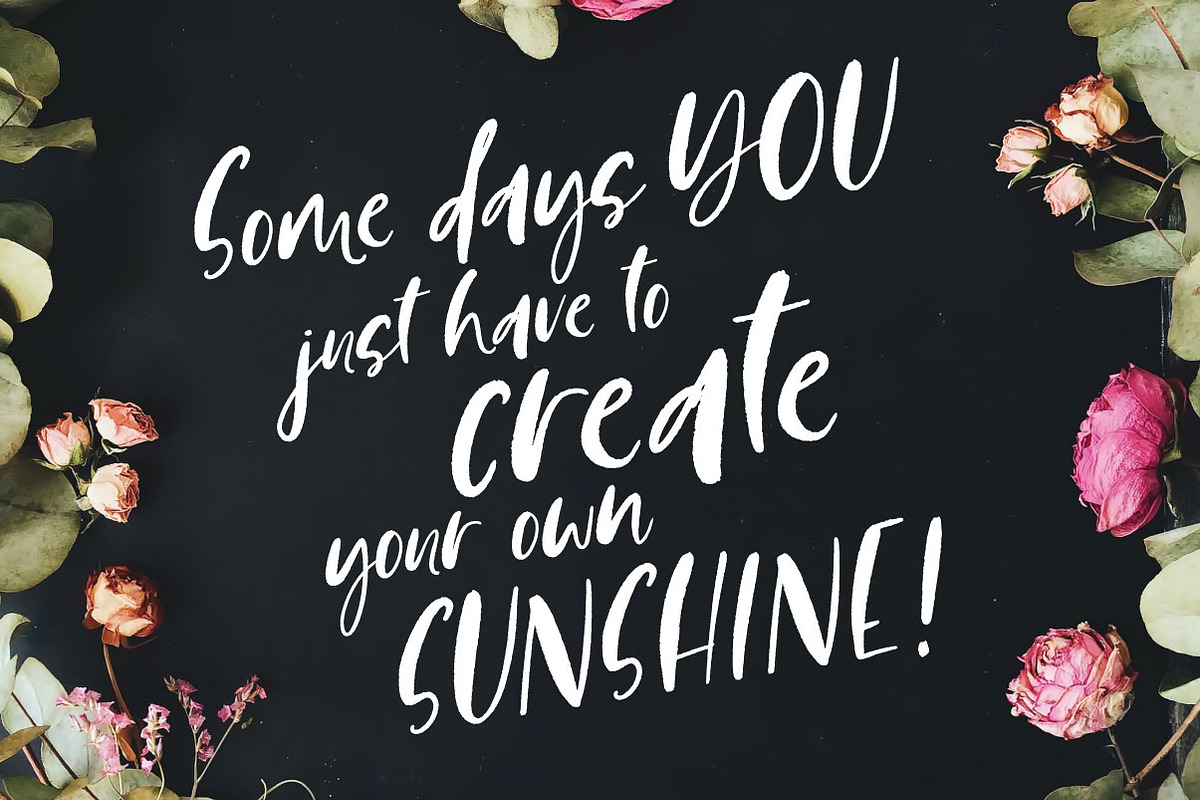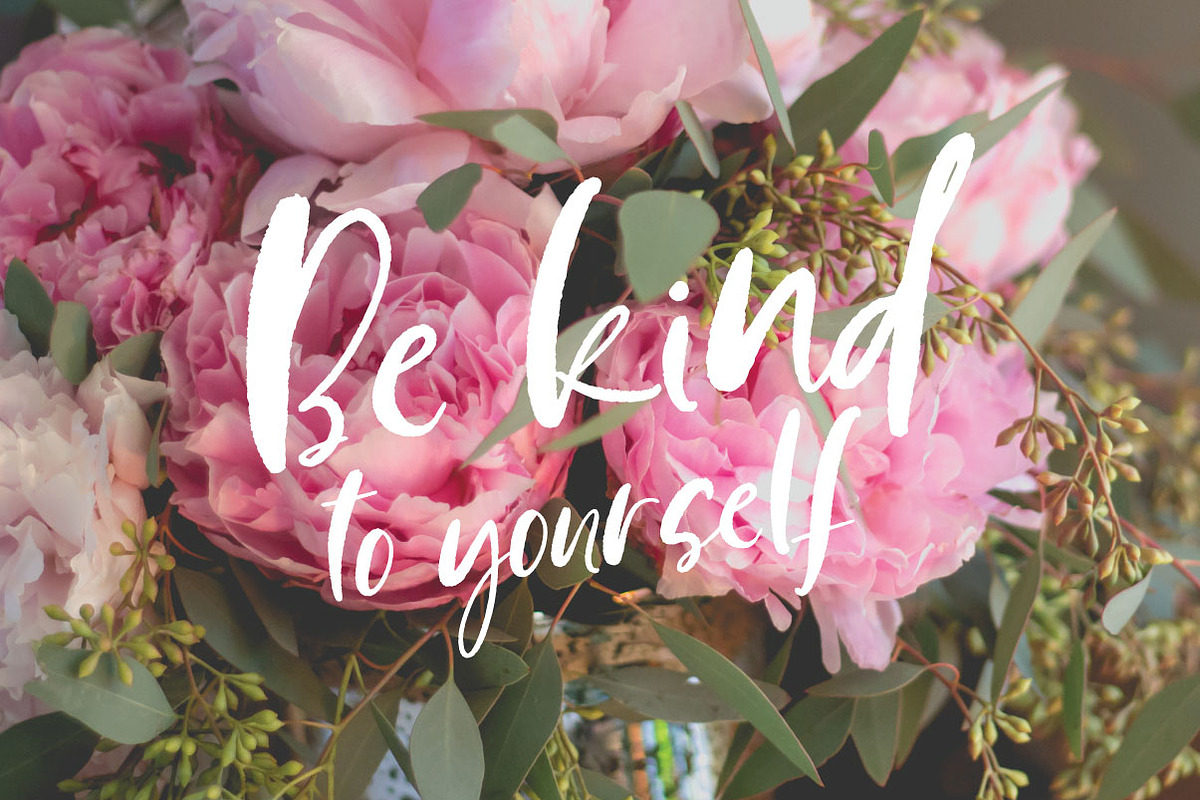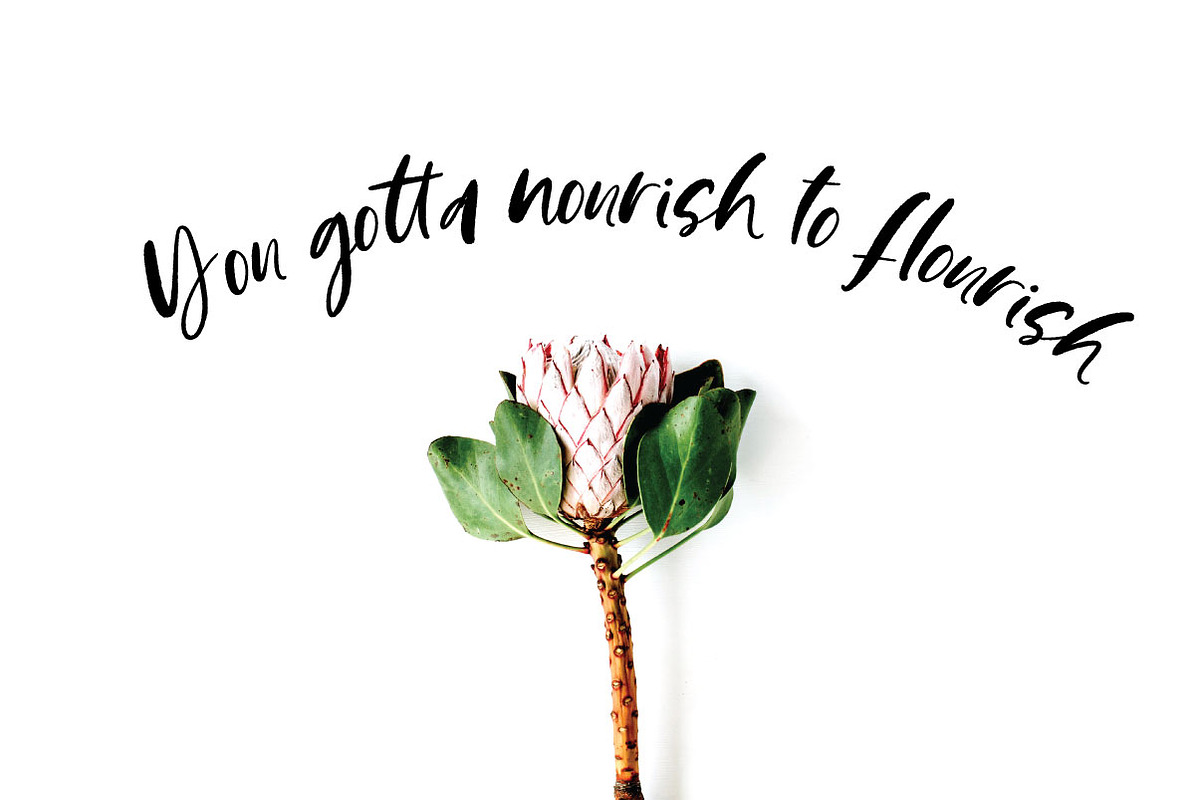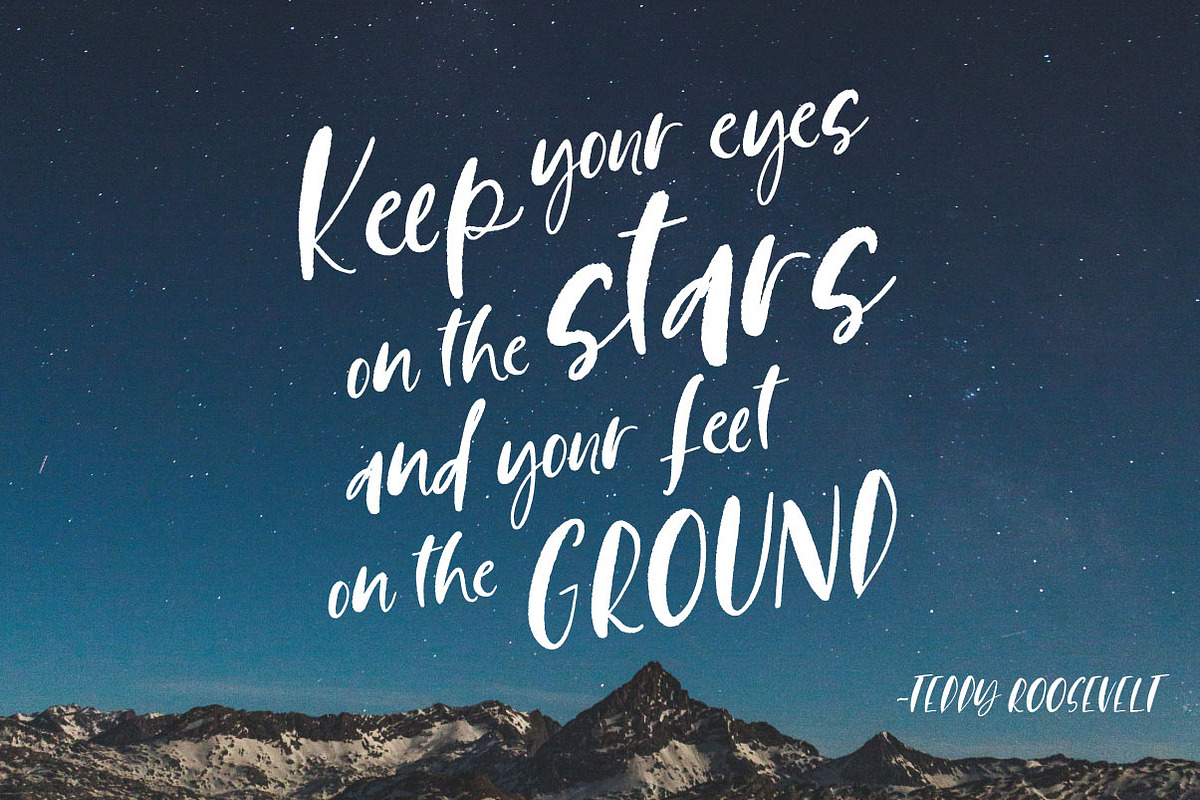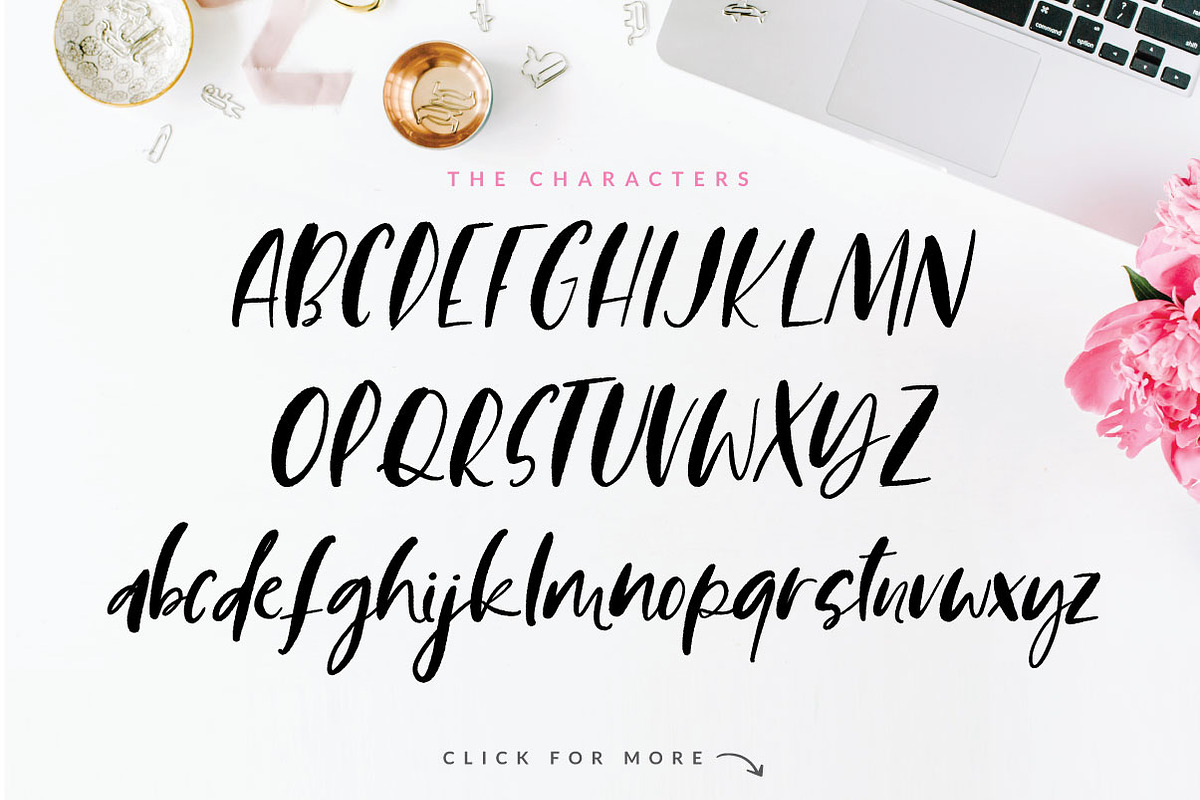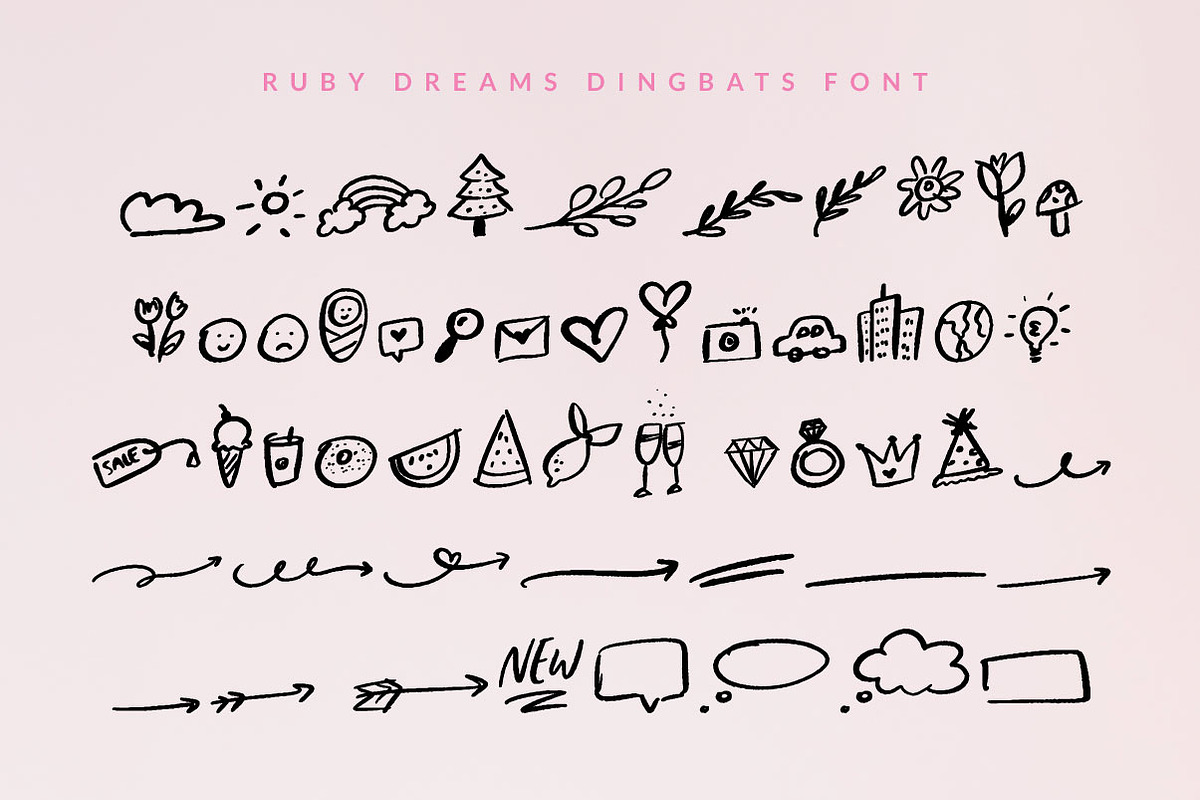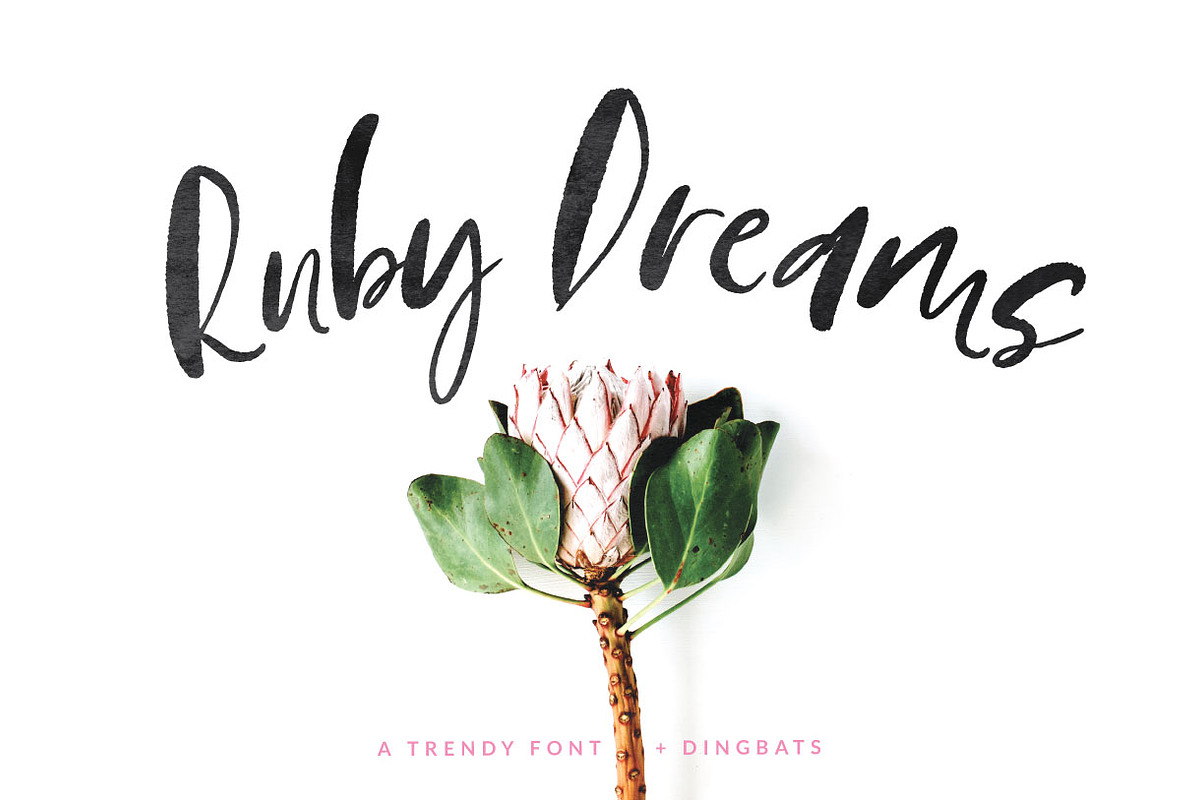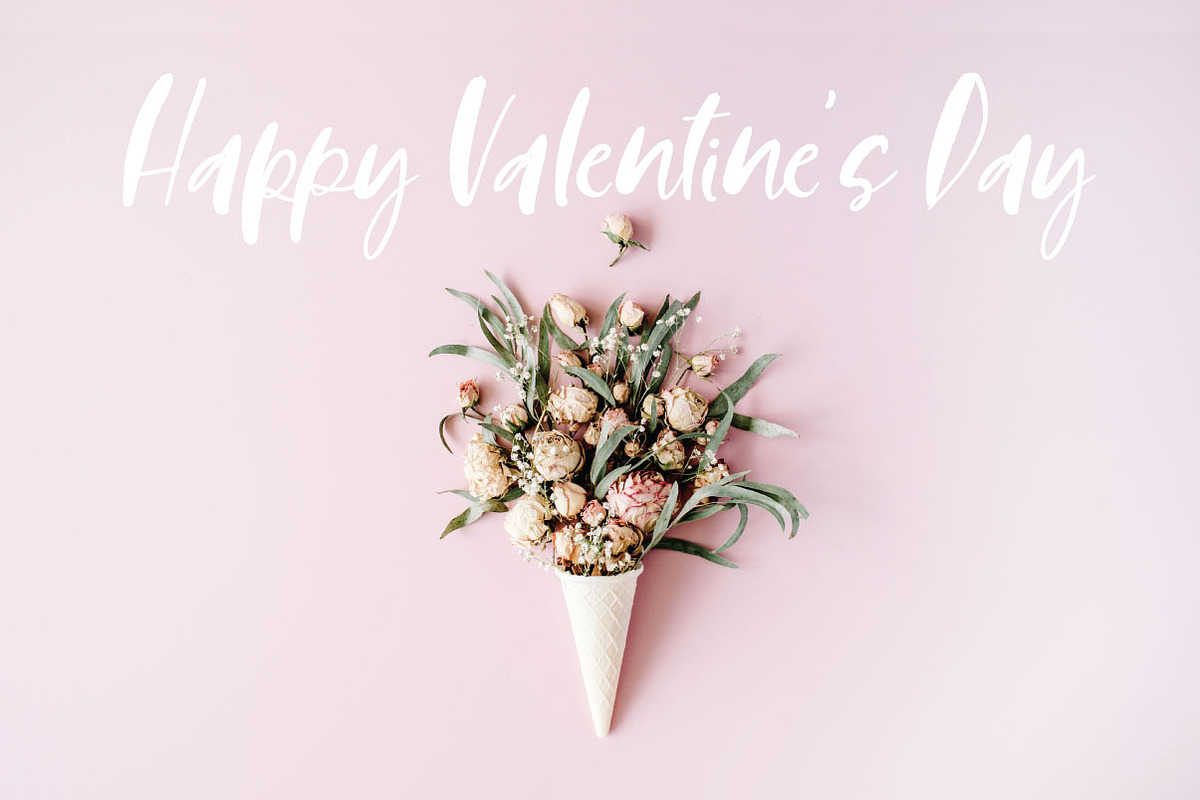
Ruby Dreams font + dingbats
Ruby Dreams is a crispy and playful font with a unique personality. This handwritten font features an ink-like style replicating an ink pen look, allowing limitless applications from logos, magazines, menus, books, invitations, product packaging, labels and even wedding/greeting cards or stationery.
It includes a series of themed dingbats with nature, objects, food, arrows and text boxes hand drawing characters, perfect for customizing your content and text creations with an organic handmade touch.
This font also features standard double letter ligatures for a more natural look between letters.
Traditional Double Letter Ligatures
Bonus font including dingbat graphics